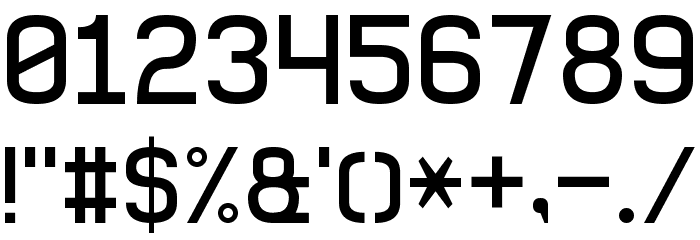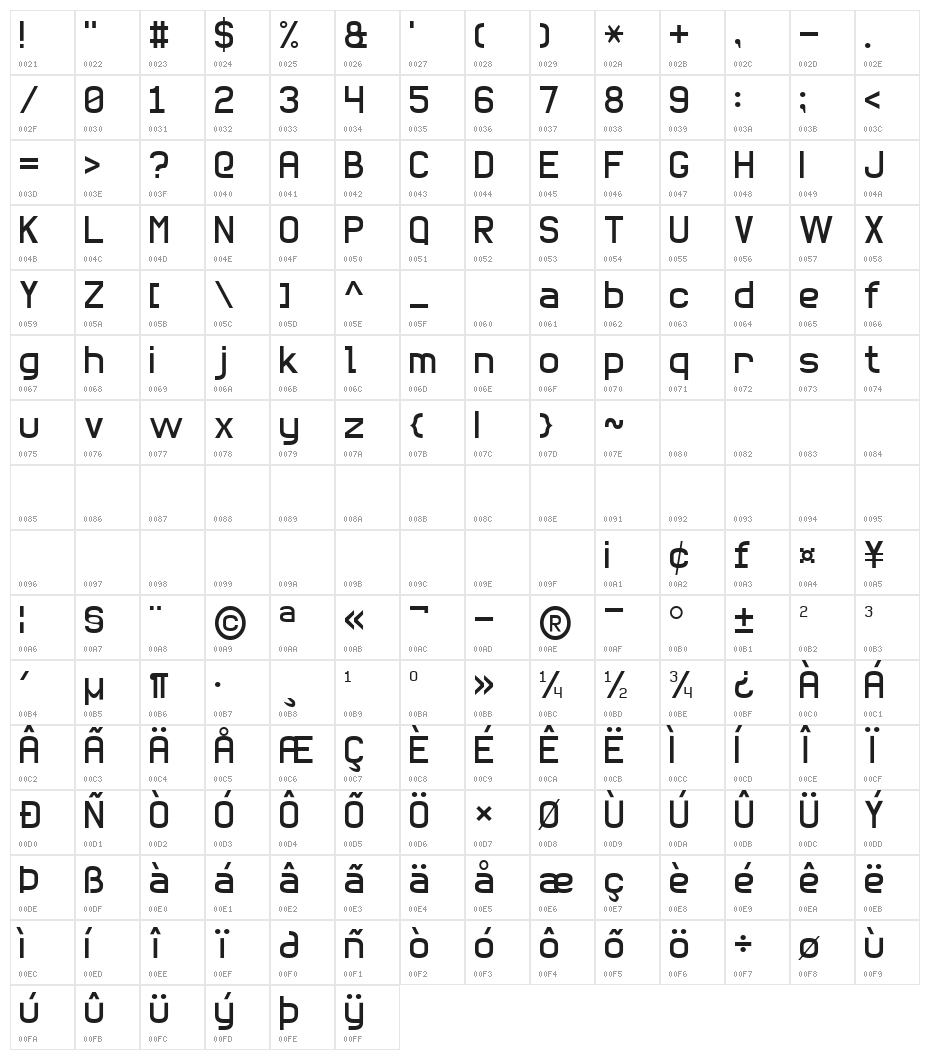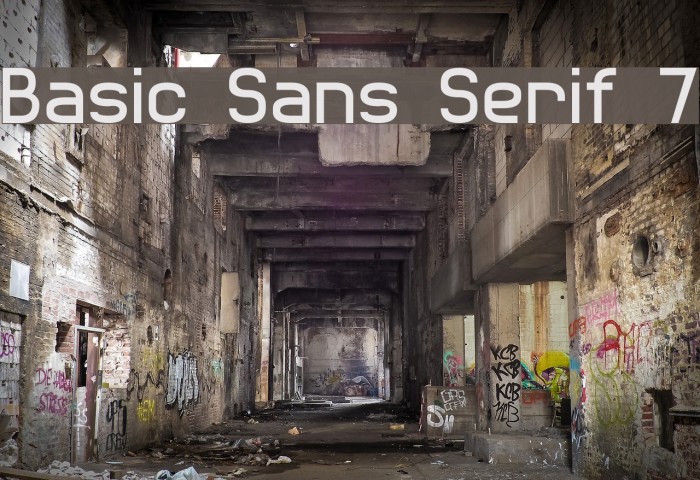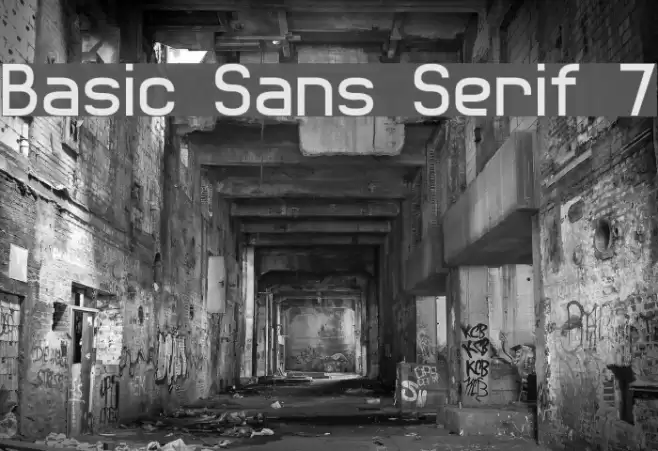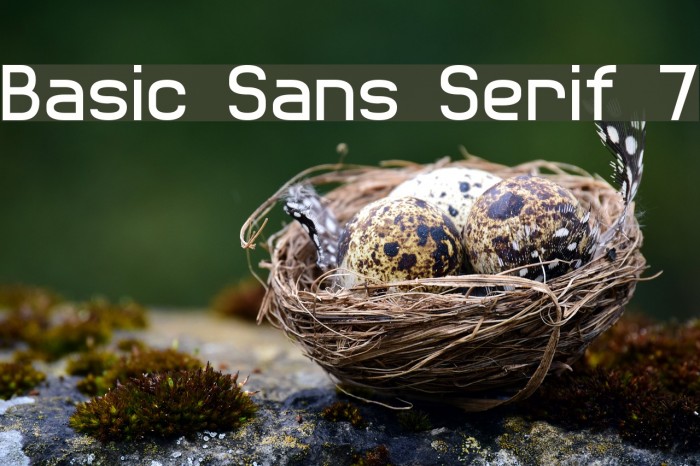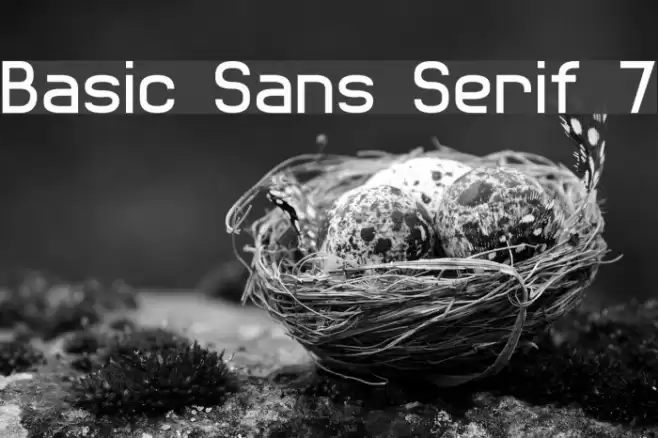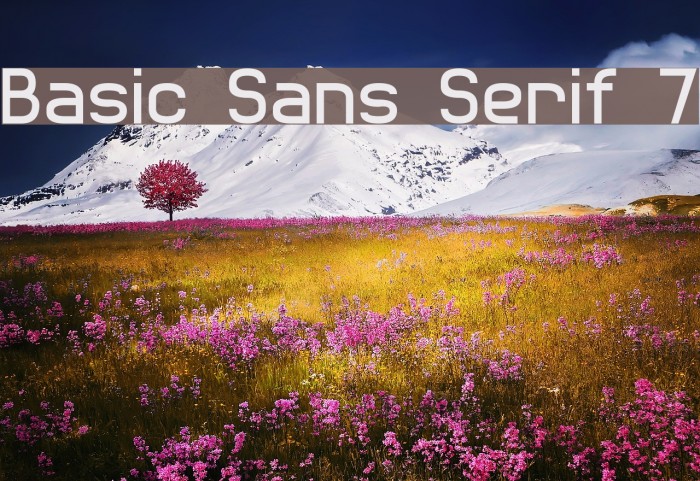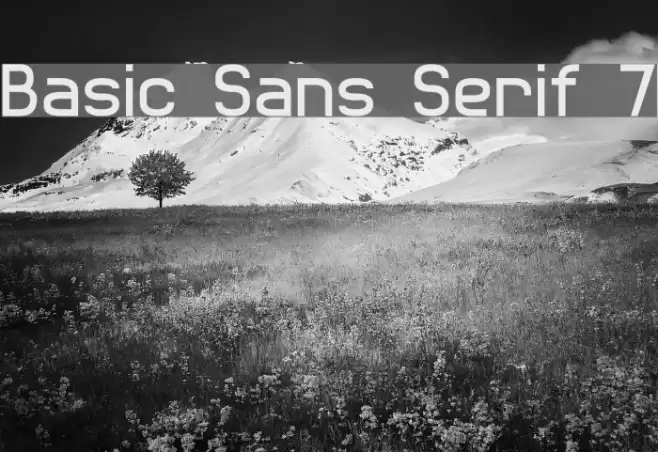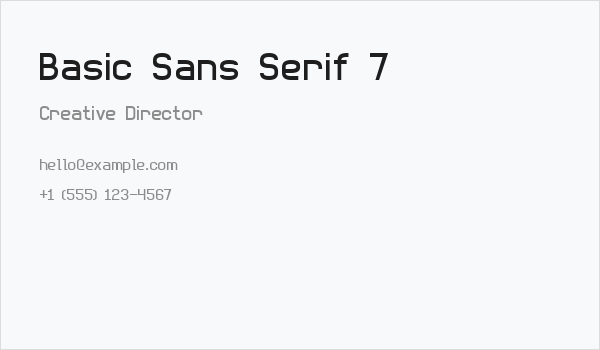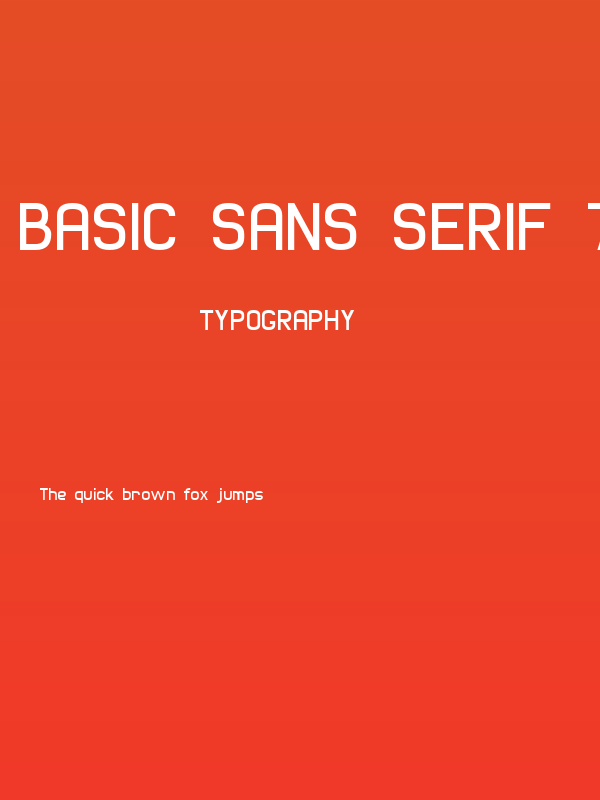
Basic Sans Serif 7 Font
Basic Sans Serif 7 Description
This font features a clean and modern sans-serif design, characterized by its simplicity and readability. The letters are evenly spaced with a consistent stroke width, giving it a uniform appearance. The uppercase letters are bold and prominent, while the lowercase letters maintain a balanced and approachable look. The numerals are clear and distinct, making them easy to read. Special characters are well-defined, adding to the font's versatility. This font is suitable for a wide range of applications due to its straightforward and professional style.